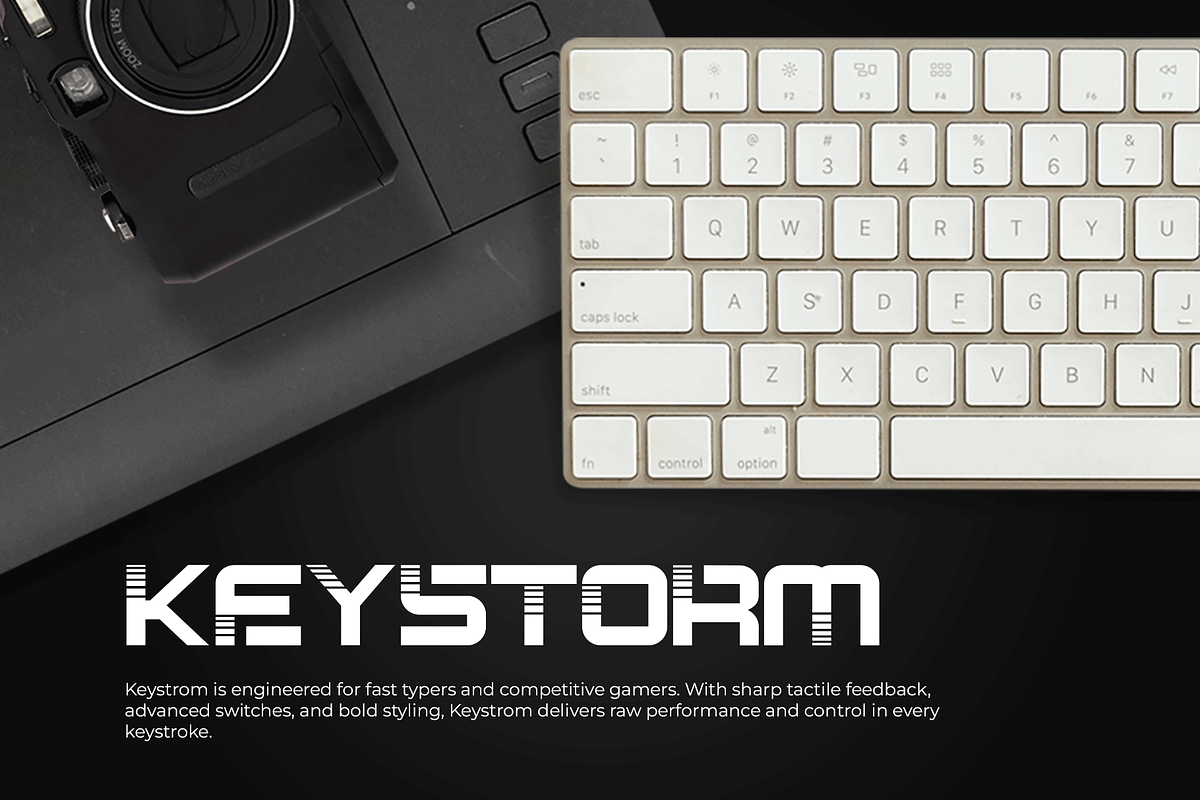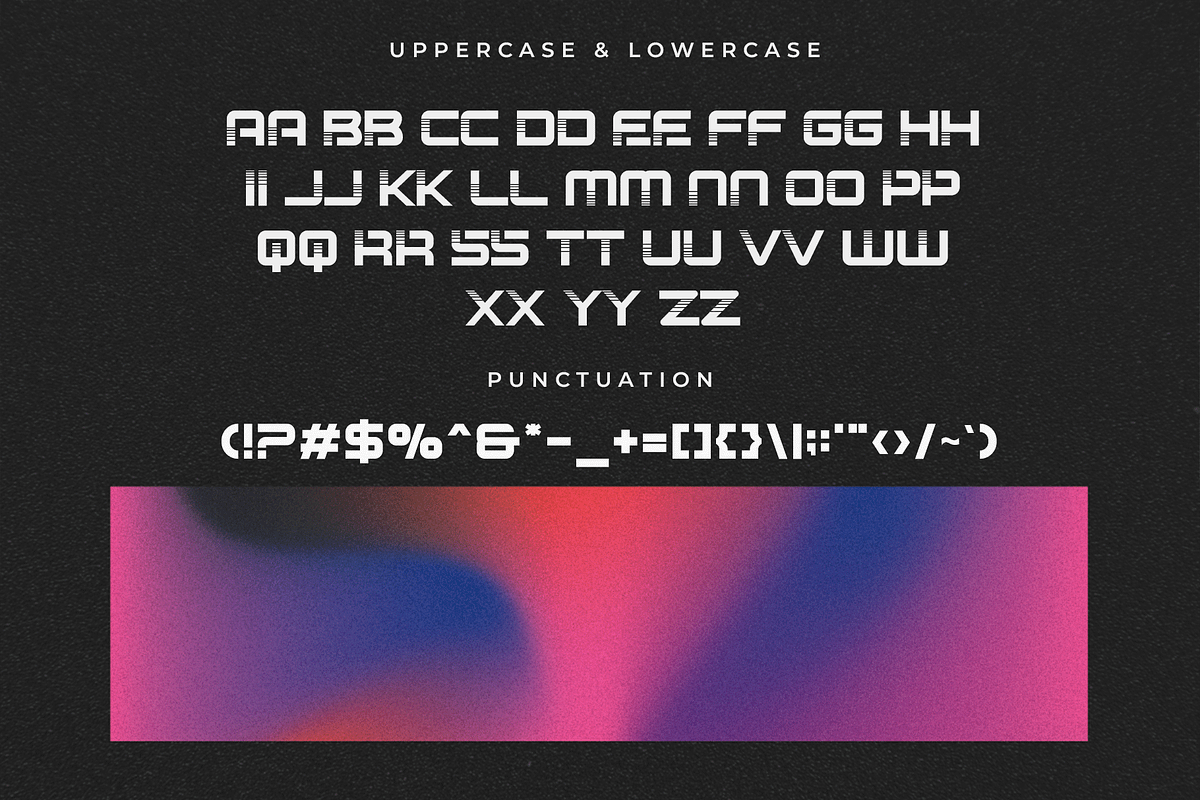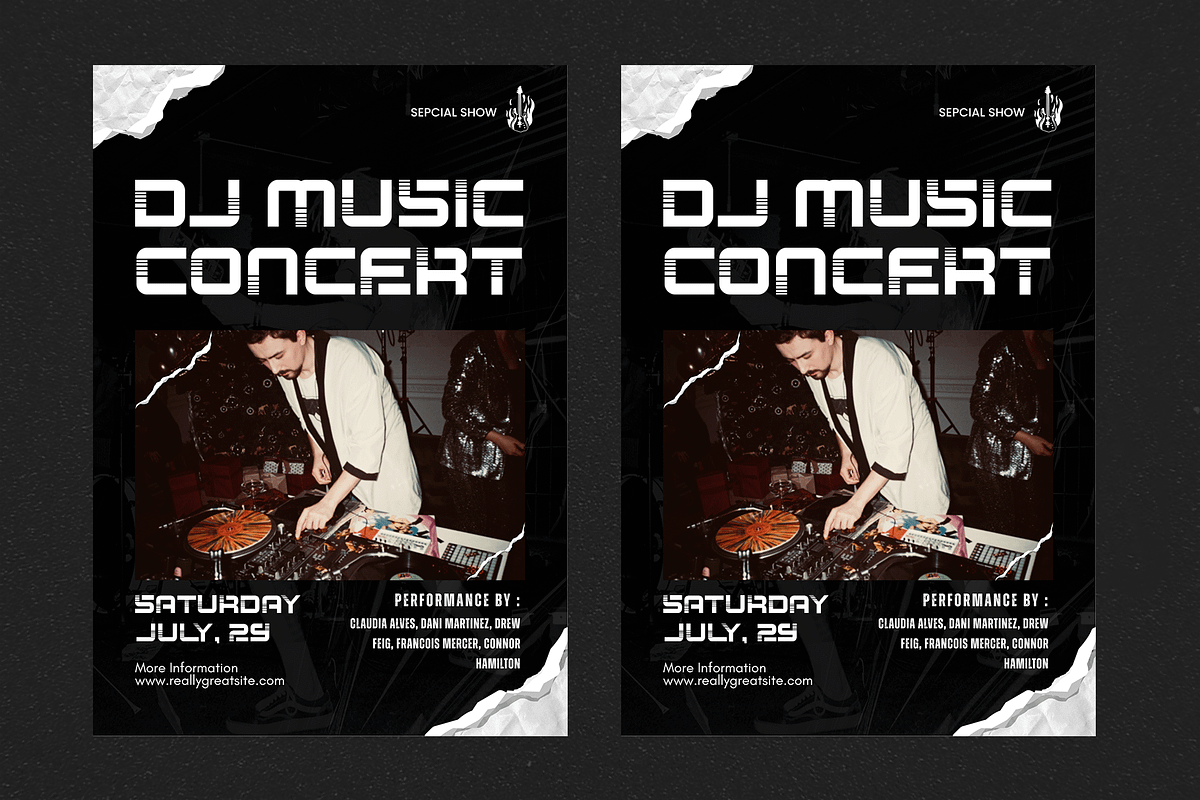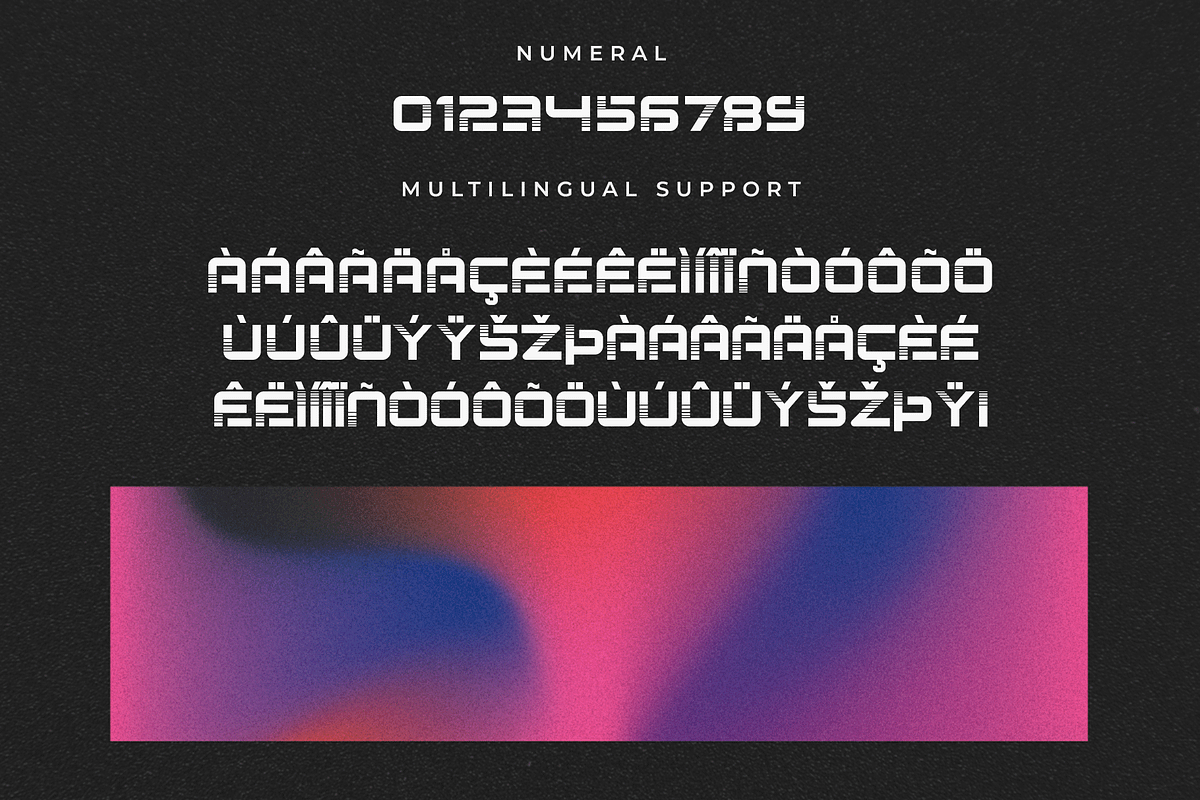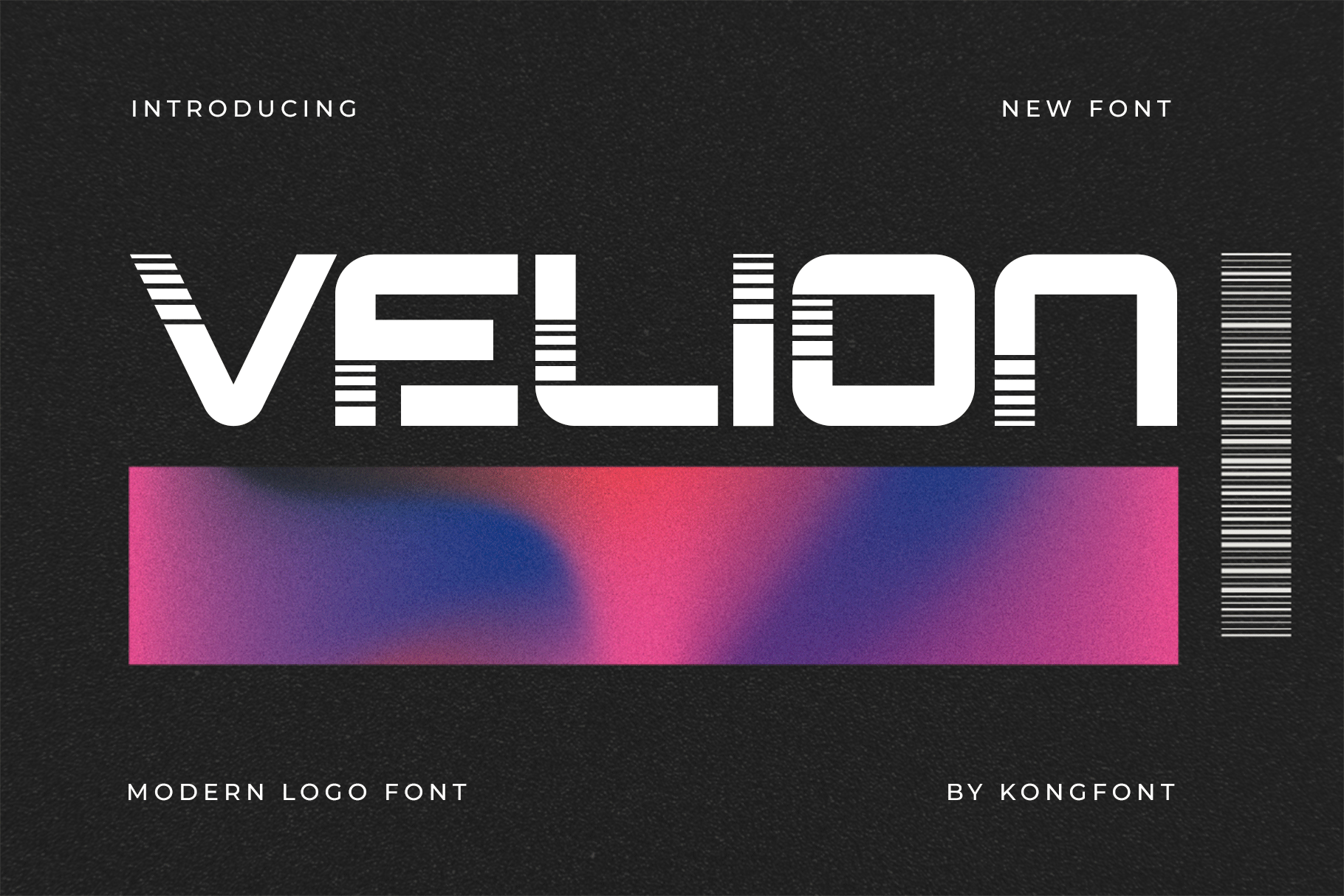
Velion – Modern Logo Font
Velion is a modern logo font designed with precision and style, perfect for creating impactful branding, clean visual identities, and bold typographic statements. With its geometric shapes, minimal curves, and sharp edges, Velion gives your designs a professional yet contemporary look.
This typeface is ideal for logo design, product packaging, website headers, fashion branding, and tech-oriented visuals. Its clean lines and confident structure provide clarity and strength, ensuring your brand stands out in every application.
Velion includes uppercase letters, numerals, basic punctuation, and multilingual support a great toolkit for designers seeking a modern, versatile font that makes a lasting impression.